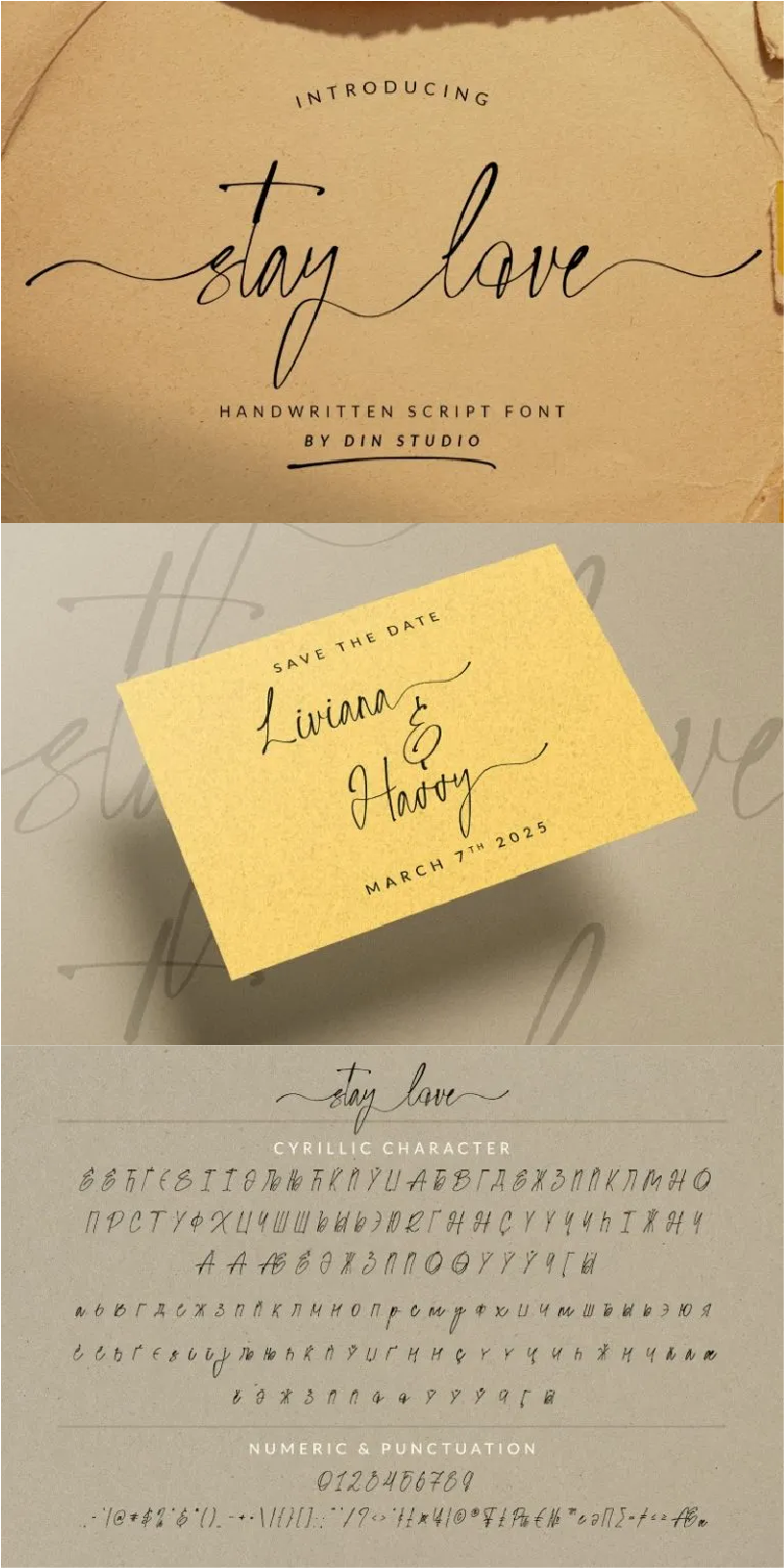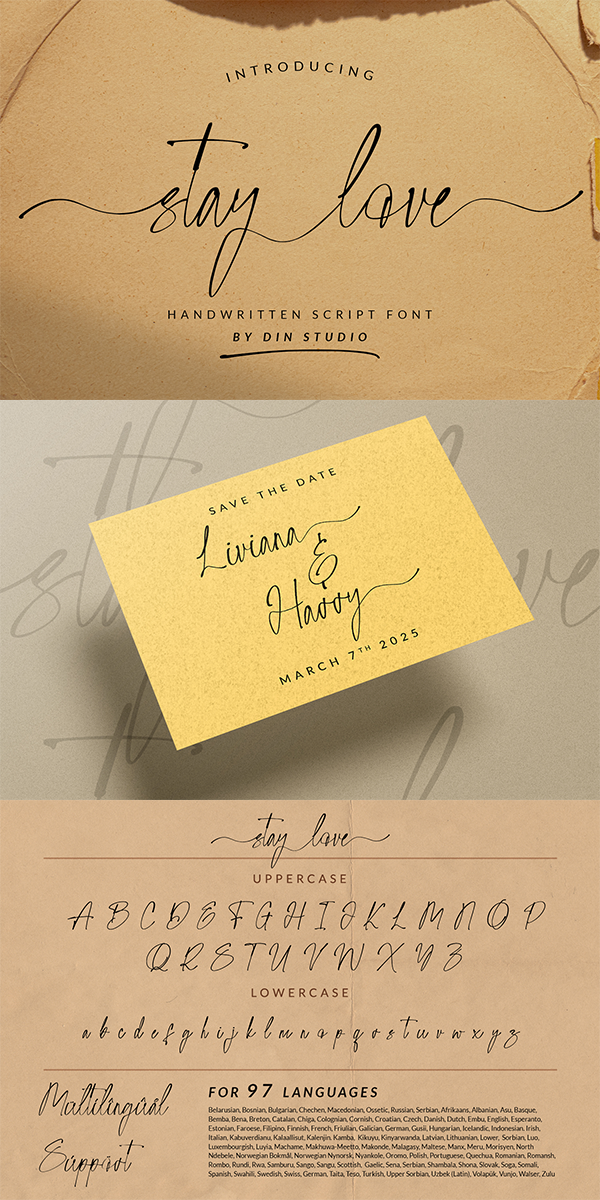
Stay Love Font
About Stay Love
Stay Love designs are beautifully crafted to look as similar as the artistic humans’ handwritings for unique, interesting displays. The letters, which connect to each other to create continuity and consistency, have high contrasts to show clear differences between the thick and the thin parts of the letters for stronger and more legible writings. Moreover, the swinging letter ends can add feminine touches and elegant beauty to your designs, which you can use in big text sizes for a legibility reason. In addition, you may indeed enjoy the available features here.
Stay Love fits best for any design projects requiring artistic, elegant displays such as wedding invitations, greeting cards, merchandise designs, and more. For such artistic and elegant displays, this script font is also applicable for logo designs, posters, and packaging. Find out more ways to use this font by taking a look at the font preview.